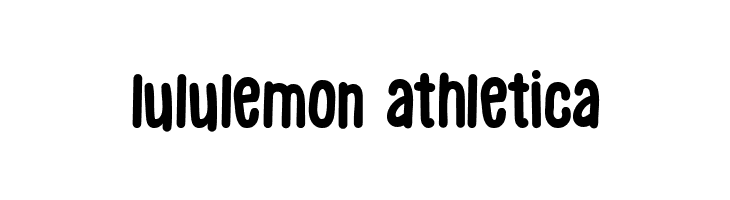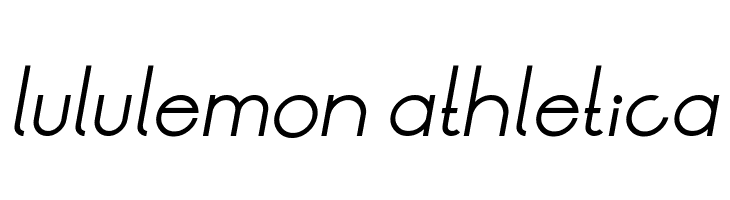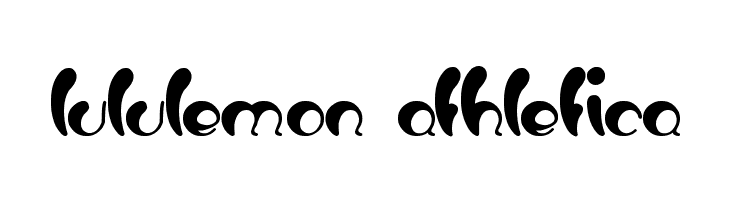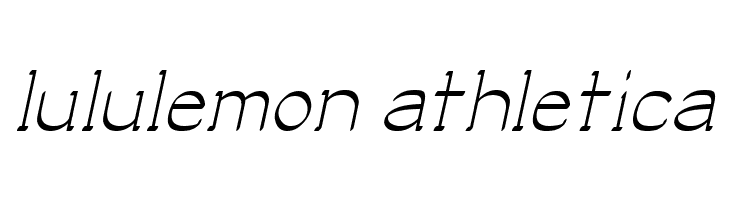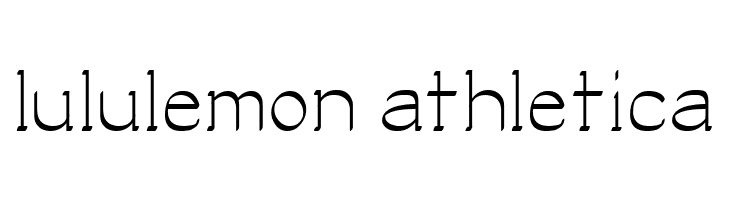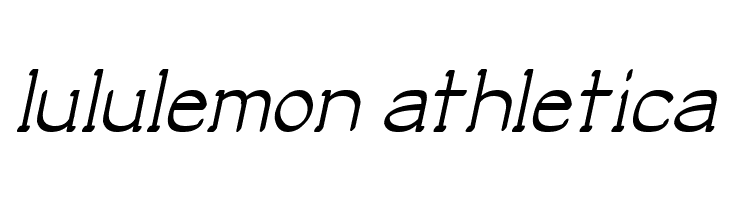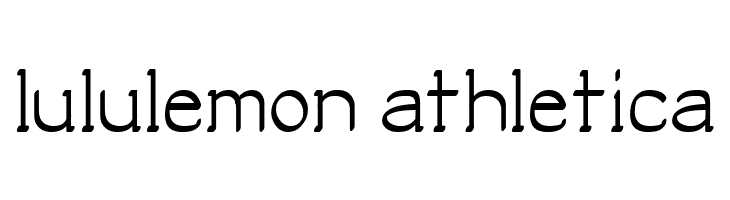
A sleek, modern italic font with clean lines and dynamic elegance.
An elegant and modern font with unique, elongated letterforms and subtle curves.
A modern serif font with elegant curves and distinct serifs.
A bold and italicized font with a dynamic and elegant style.
An elegant italic font with medium contrast and a graceful, fluid style.
A playful, bold font with rounded edges and a friendly style.
A bold, playful font with curvaceous and whimsical letterforms.